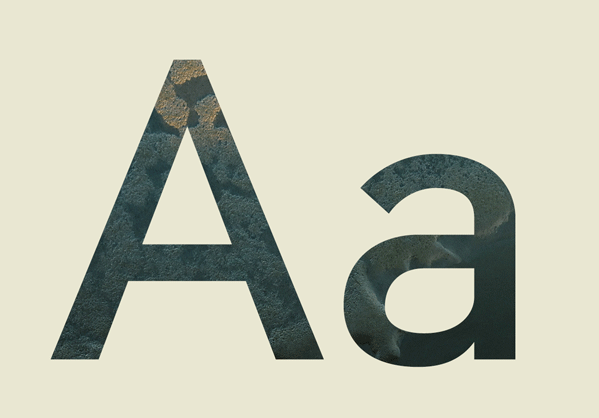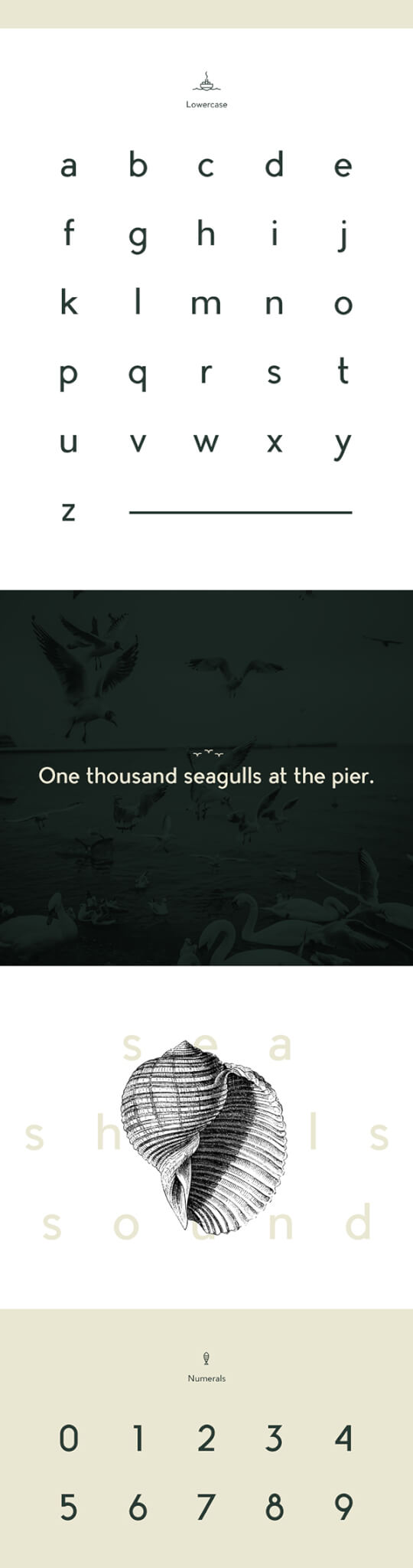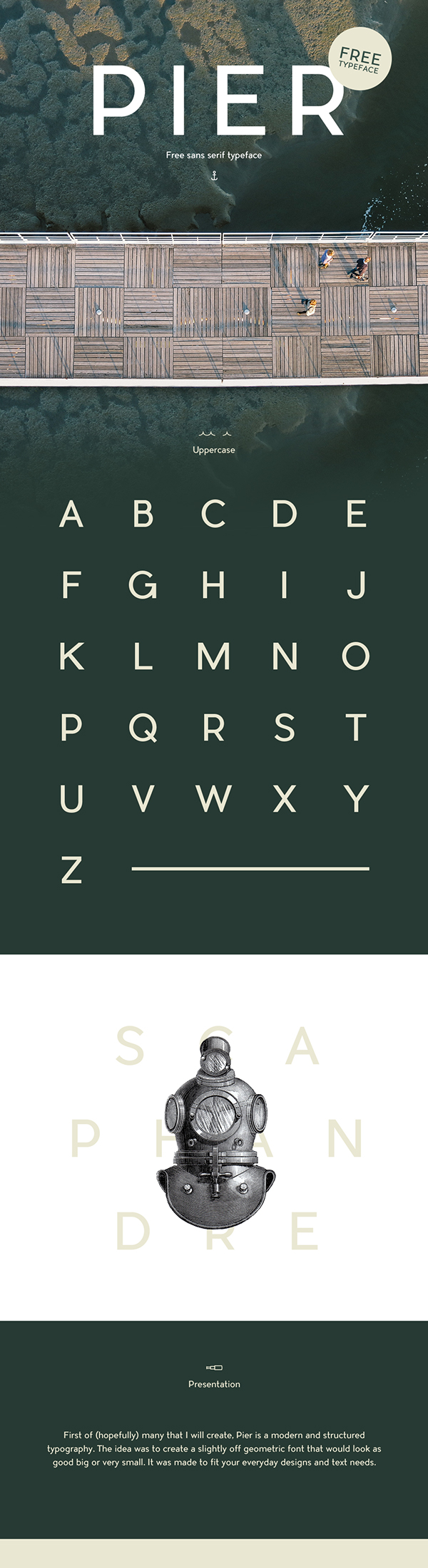
Pier free sans serif typeface Posted on February 21, 2015 /Under Freebies, Typography Pier is a solid sans serif typeface with an elegant impact, beautifully designed by: Mathieu Desjardins Download Resource Here Pier free type face by Mathieu Desjardins Pier free typeface Share this: Share on Facebook (Opens in new window) Facebook Share on Pinterest (Opens in new window) Pinterest Share on Threads (Opens in new window) Threads More Share on X (Opens in new window) X Share on LinkedIn (Opens in new window) LinkedIn Like this:Like Loading… Related